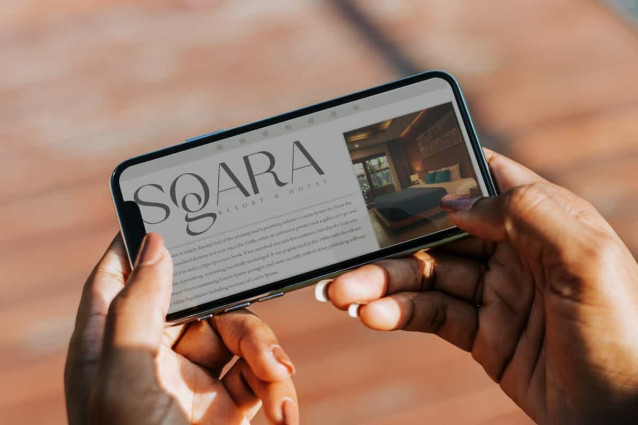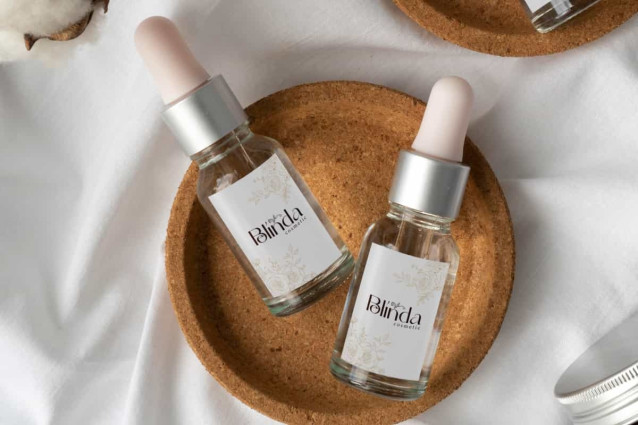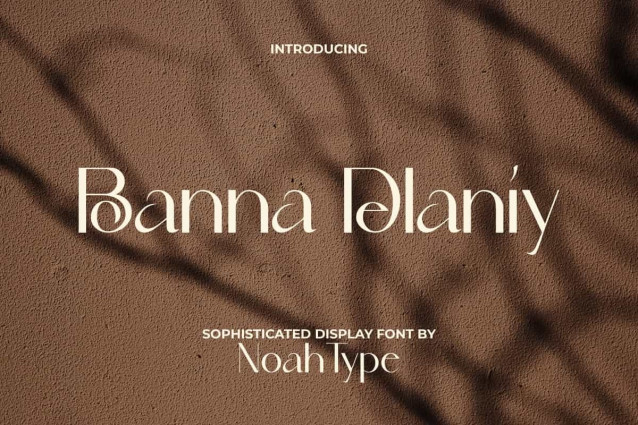
Boanna Delaniy Font
Boanna Delaniy Font is a sophisticated and luxury display font by NoahType. This font makes the Sans Serif style more luxurious and creative so that it can make your design more varied. It will be good for any designs, such as invitation, brand image, custom design, label, marketing material, menu, poster, product packaging, quotes, signage, stationery, web and many more!
Boanna Delaniy Font includes a complete set of Uppercase and Lowercase Basic Characters, Numerals, Punctuation and Symbol. The addition of Ligature character of this font will give stunning look and also a perfect choice for many industries, such as beauty product, event or wedding organizer, accessories, advertising, fashion, movie, photography, printing, publishing, spa and salon, travel, etc.